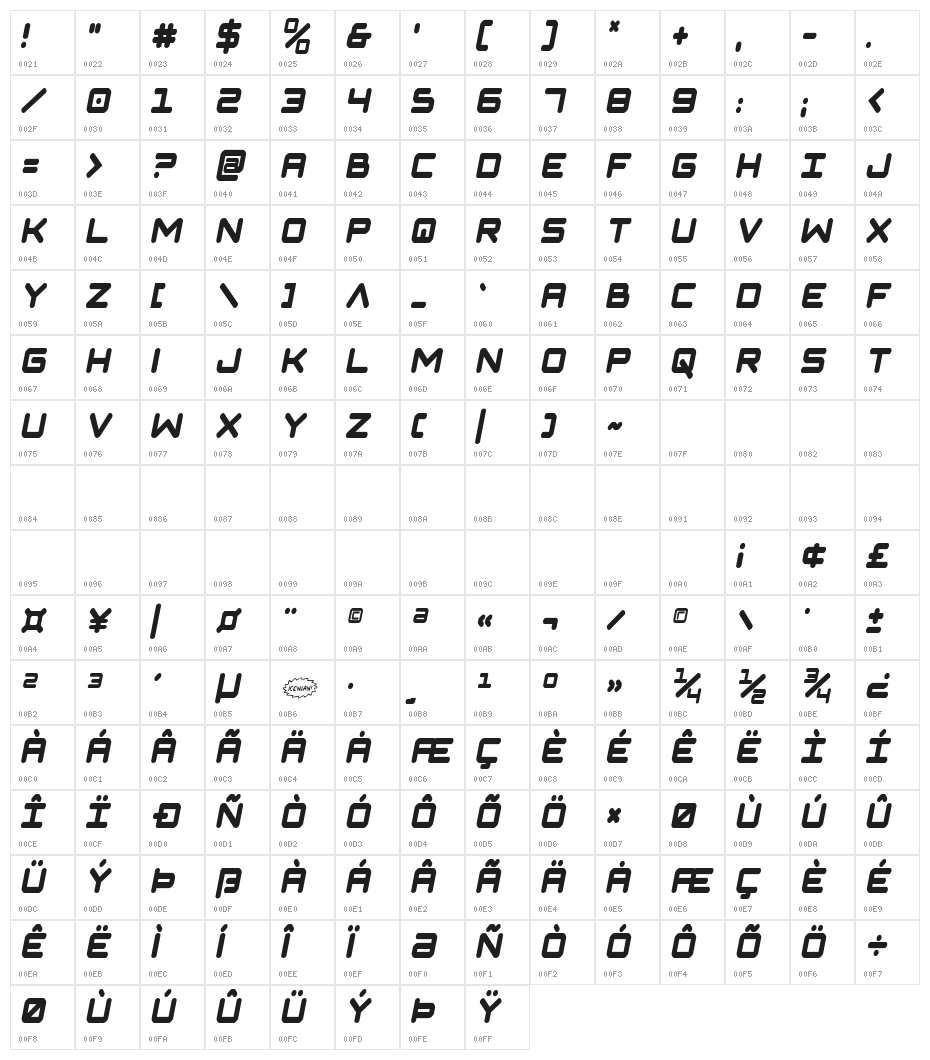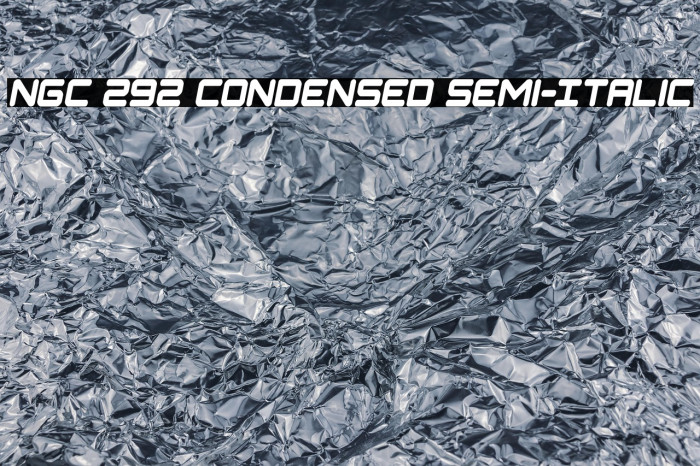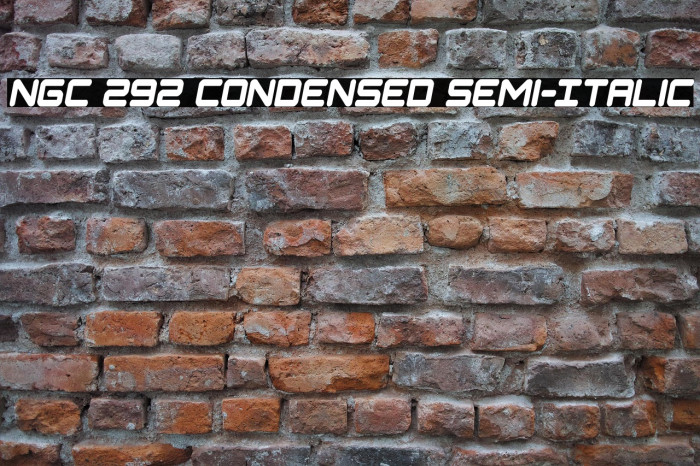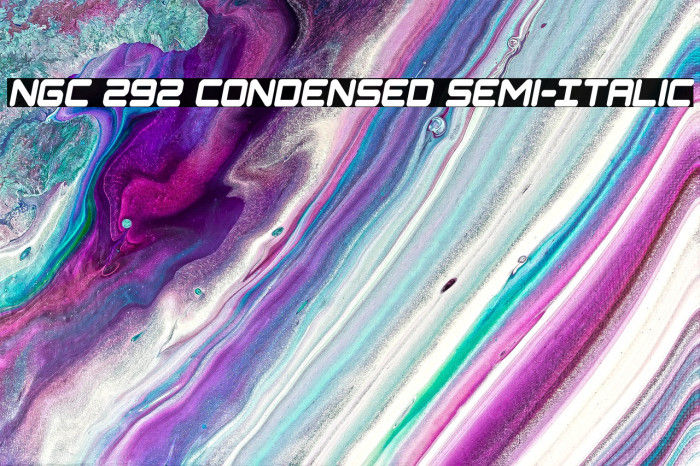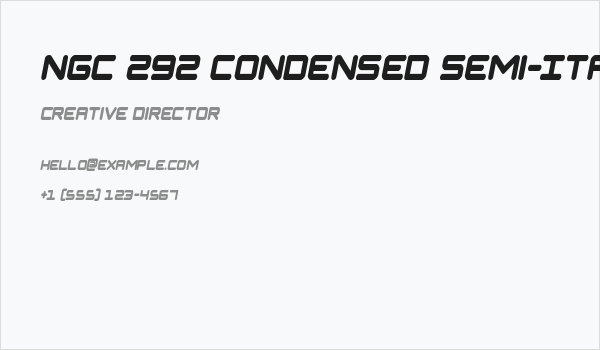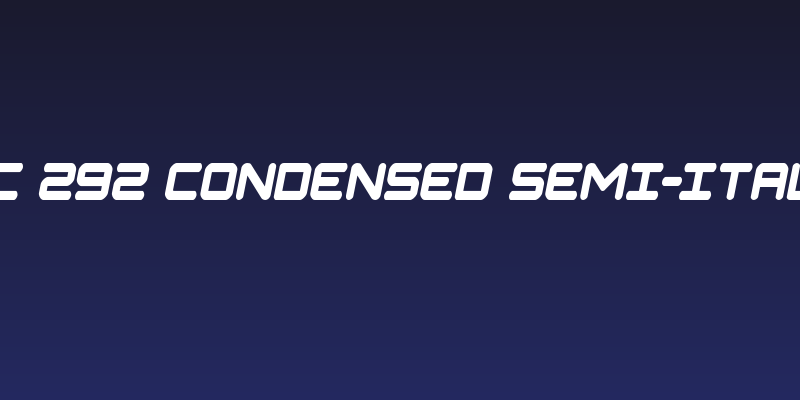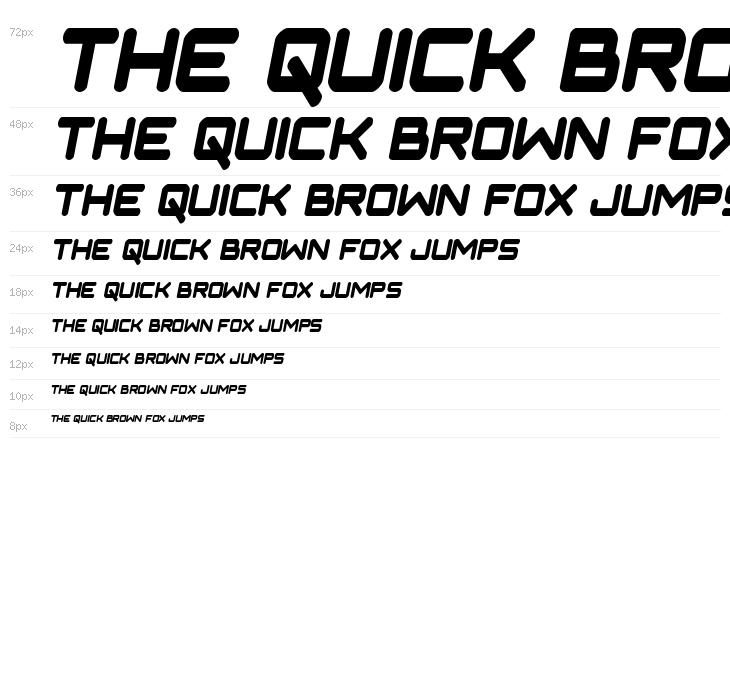
NGC 292 Condensed Semi-Italic Font
NGC 292 Condensed Semi-Italic Description
This font features a modern, geometric design with rounded edges and a semi-italic slant, giving it a dynamic and forward-moving appearance. The characters are condensed, allowing for efficient use of space while maintaining readability. The uniform stroke width provides a clean and consistent look, making it suitable for various applications. The font includes a full set of uppercase and lowercase letters, numerals, and a variety of special characters, ensuring versatility in design projects. The overall style is sleek and contemporary, ideal for projects that require a futuristic or tech-savvy aesthetic.
| Use Case | Headlines, Logos, Digital Interfaces |
| Proposed Projects | Ideal for tech branding, futuristic designs, digital interfaces, and modern advertising. |